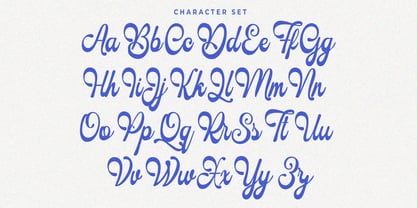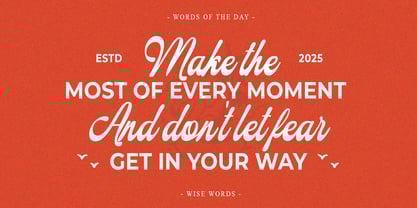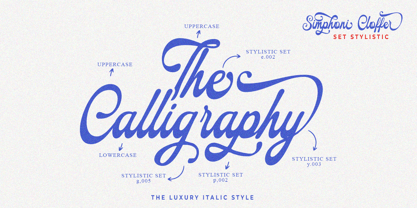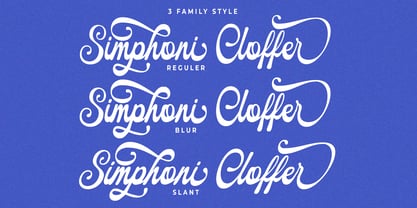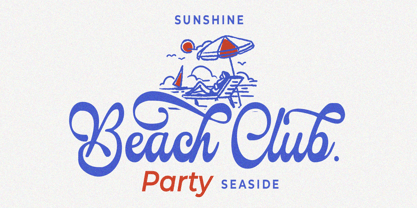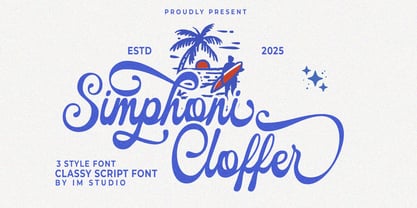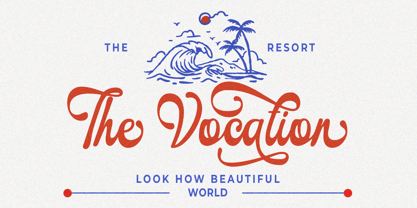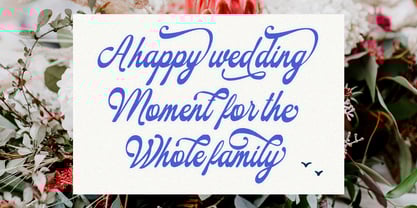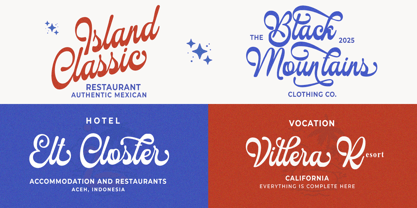
Simphoni Cloffer
por IM Studio
La familia tipográfica Simphoni Cloffer fue diseñada por Ikhsan Maulana y publicada por IM Studio. Simphoni Cloffer contiene 3 estilos.
Simphoni Cloffer is a timeless yet modern script font with 3 styles, inspired by the elegance of classic handwriting found in vintage books. Designed with harmonious flows and gentle curves, this font offers a beautiful balance between tradition and contemporary charm.
Equipped with style sets, contextual alternates, subtle ligatures, and comprehensive multilingual support, Simphoni Cloffer adds a touch of sophistication to any design project—making it a perfect choice for logos, quotes, invitations, greeting cards, product packaging, letterheads, apparel, web design, magazines, books, and more.